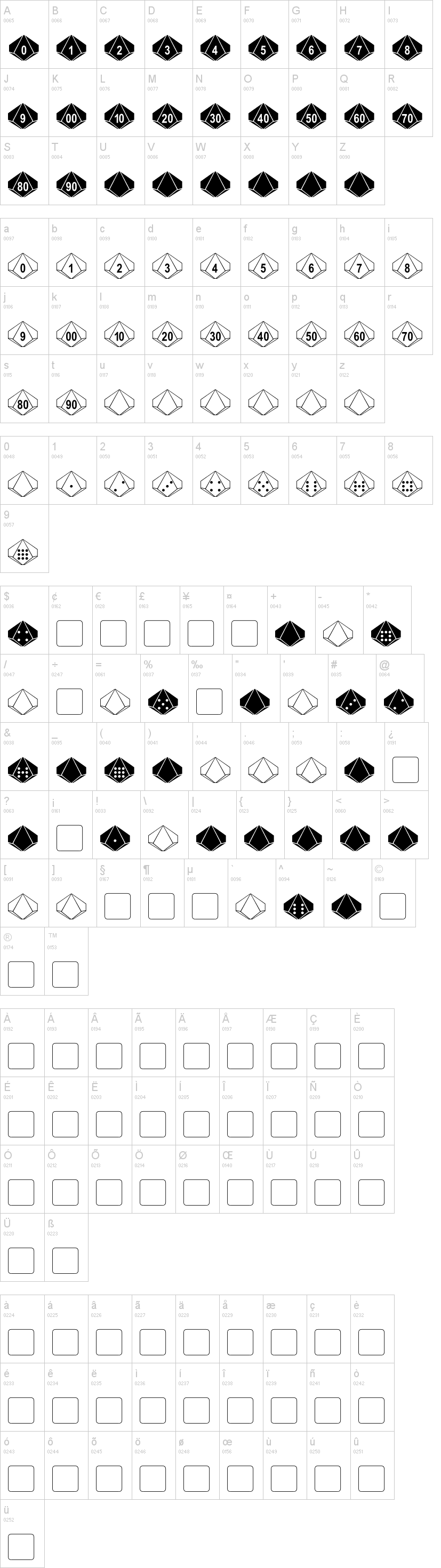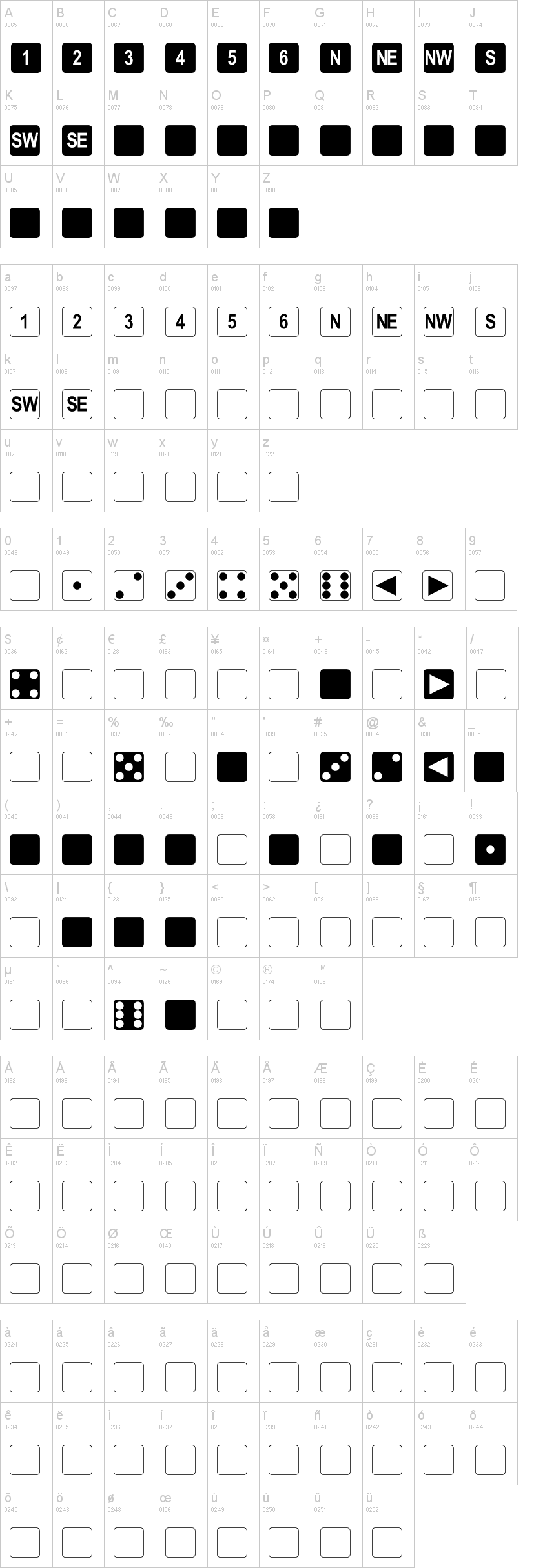
DPoly Twelve-Sider.otfDPoly Twenty-Sider.otfDPoly Six-Sider.otfDPoly Eight-Sider.otfDPoly Four-Sider.otfNote of the authorDPoly is a collection of game dings fonts family based on the common dice in role-playing games. Includes Four-Sider, Six-Sider, Eight-Sider, Ten-Sider, Twelve-Sider, and Twenty-Sider types. Each font has white and black versions of the dice and numerous additions.